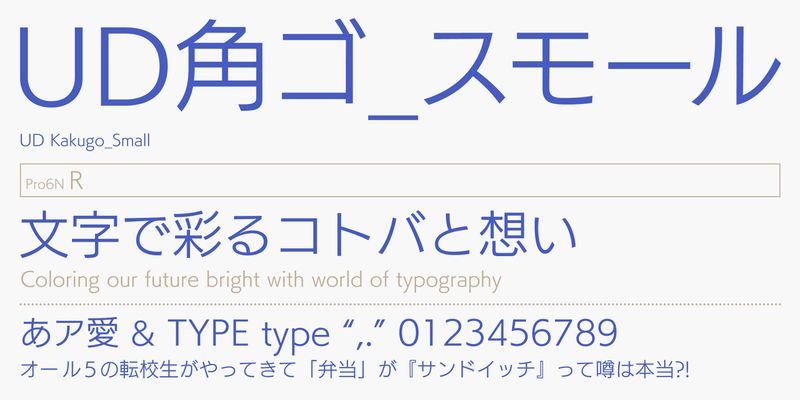
FOT-UDKakugo Small Pr6N Font Free Download is a highly legible and practical Gothic-style typeface specifically designed for small-size text. Its clean lines and optimized spacing make it ideal for user interfaces, manuals, signage, and dense information layouts where clarity is critical. With support for both Japanese and Latin characters, it ensures consistent, professional typography across languages.